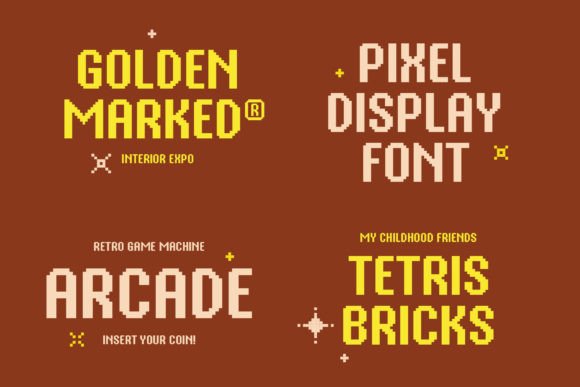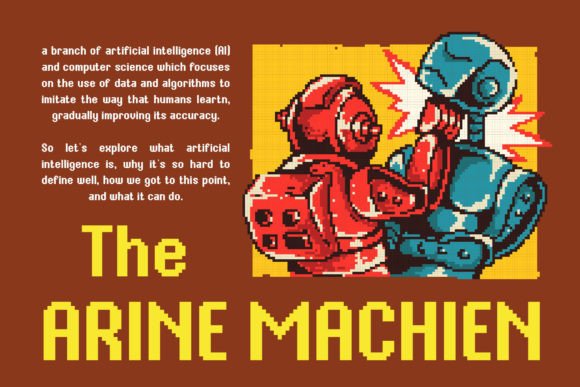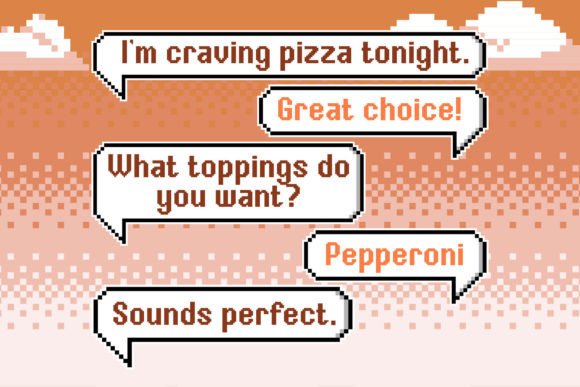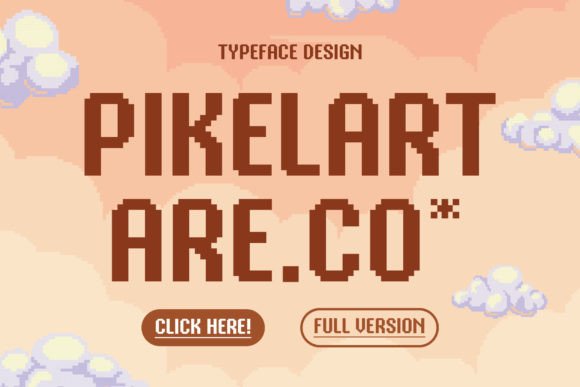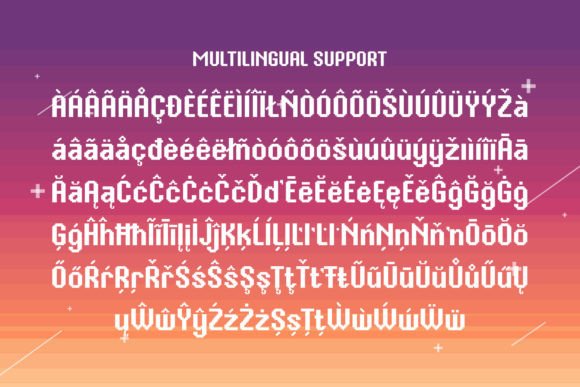
Introducing “Space Invasion” – the pixel font that effortlessly fuses futuristic tech with retro charm. Its sharp, pixel style is ideal for games, art, and websites, offering pixel-perfect nostalgia in every character. Embrace the future with “Space Invasion.”
Space Invasion brings a sense of futuristic adventure to your projects, whether you’re designing a video game, crafting digital art, or creating a website with a cyberpunk twist. Each character in Space Invasion is a pixel-perfect work of art, making it the ideal choice for anyone seeking to infuse their creations with a captivating and immersive pixelated style.